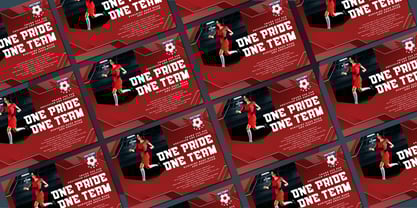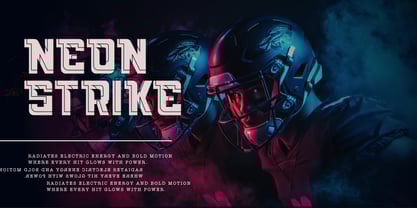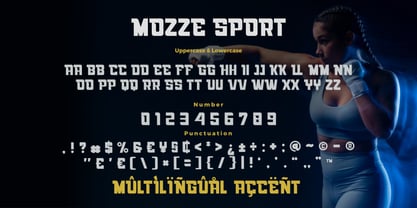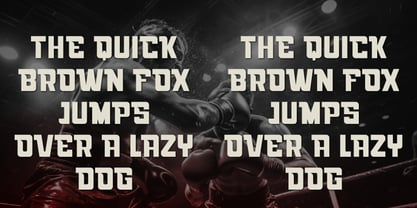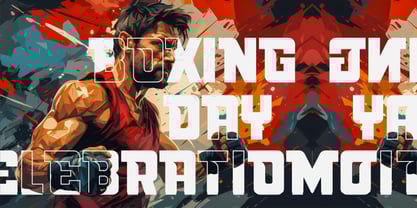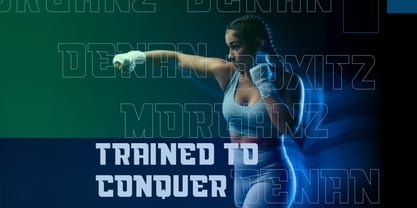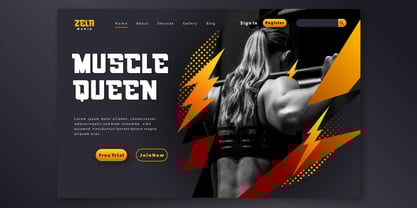
Mozze Sport
by Bayuktx
The Mozze Sport Font Family was designed by Bayu Aji Fais Mursid and published by Bayuktx. Mozze Sport contains 1 styles. More about this family
Mozze Sport — Modern Strength Display Font Mozze Sport Font embodies raw energy, precision, and competitive motion. Designed with a bold geometric structure and modern athletic style, it delivers power in every letter — perfect for visuals that demand strength, speed, and dominance. Every curve and cut reflects determination and discipline, bringing a sense of victory to your design. From esports titles to gym merchandise, Mozze Sport radiates confidence and adrenaline, transforming words into unstoppable impact. Whether used for logos, posters, merchandise, or motivational branding, this font gives your design the dynamic force of modern competition — fearless, fast, and built to win. Key Features : * Uppercase & Lowercase * Numerals & Punctuation * Multilingual Support * PUA Encoded & OpenType Features Suitable For : * Sport & Fitness Branding * Esport Logos & Team Identity * Gym Posters & Merchandise Design * Motivational Quotes & Banners * Action Titles & Dynamic Typography With Mozze Sport Font, your design becomes a statement of motion — strong, sleek, and unstoppable.